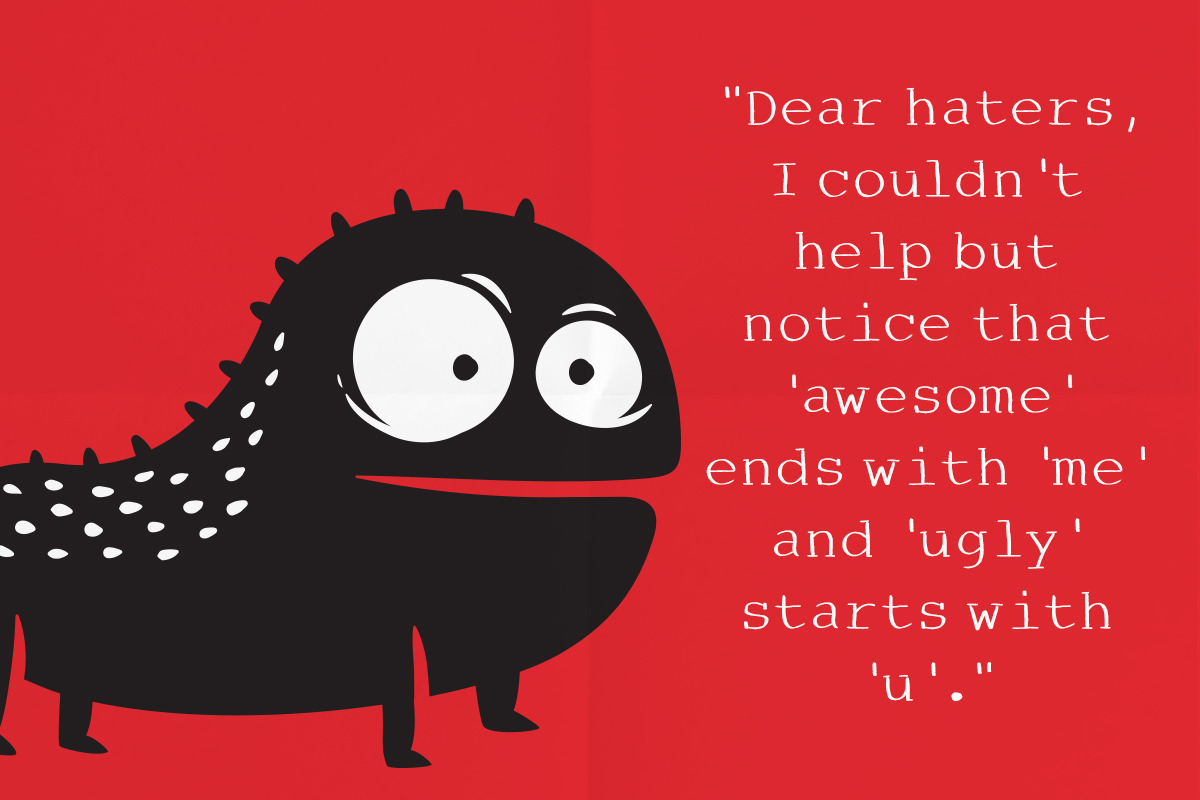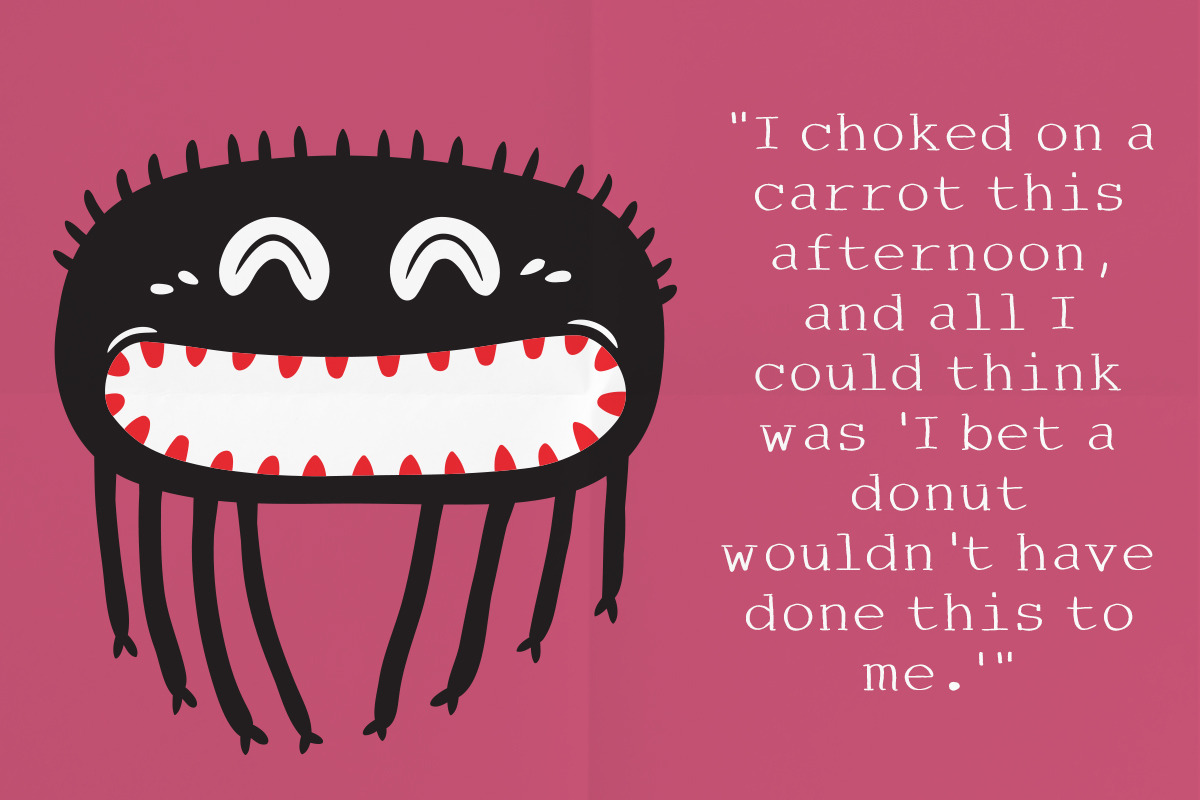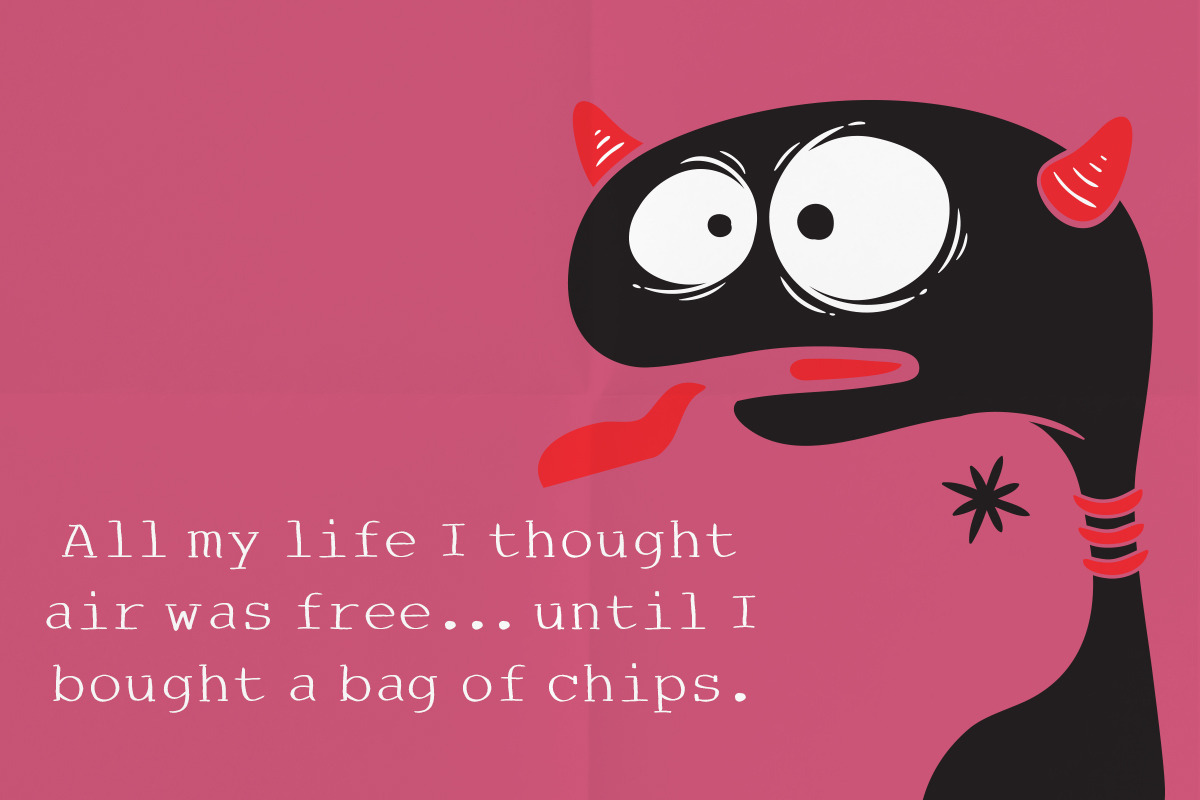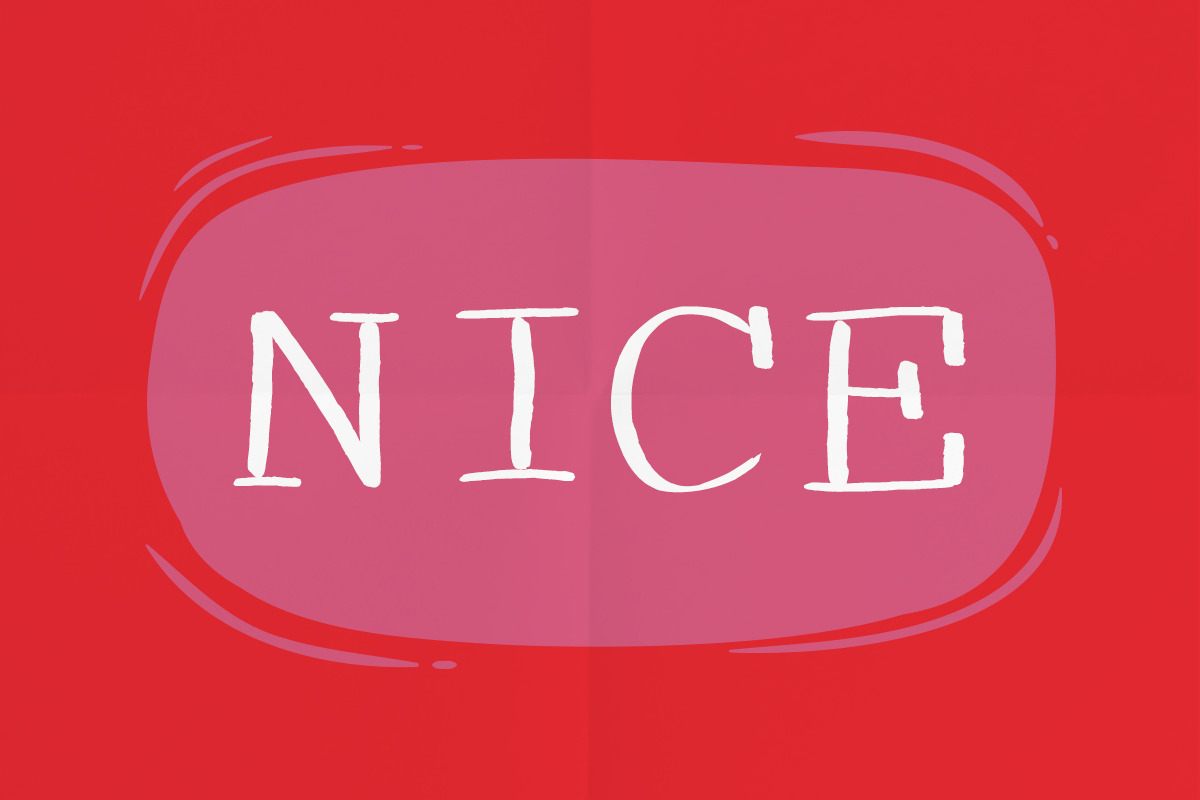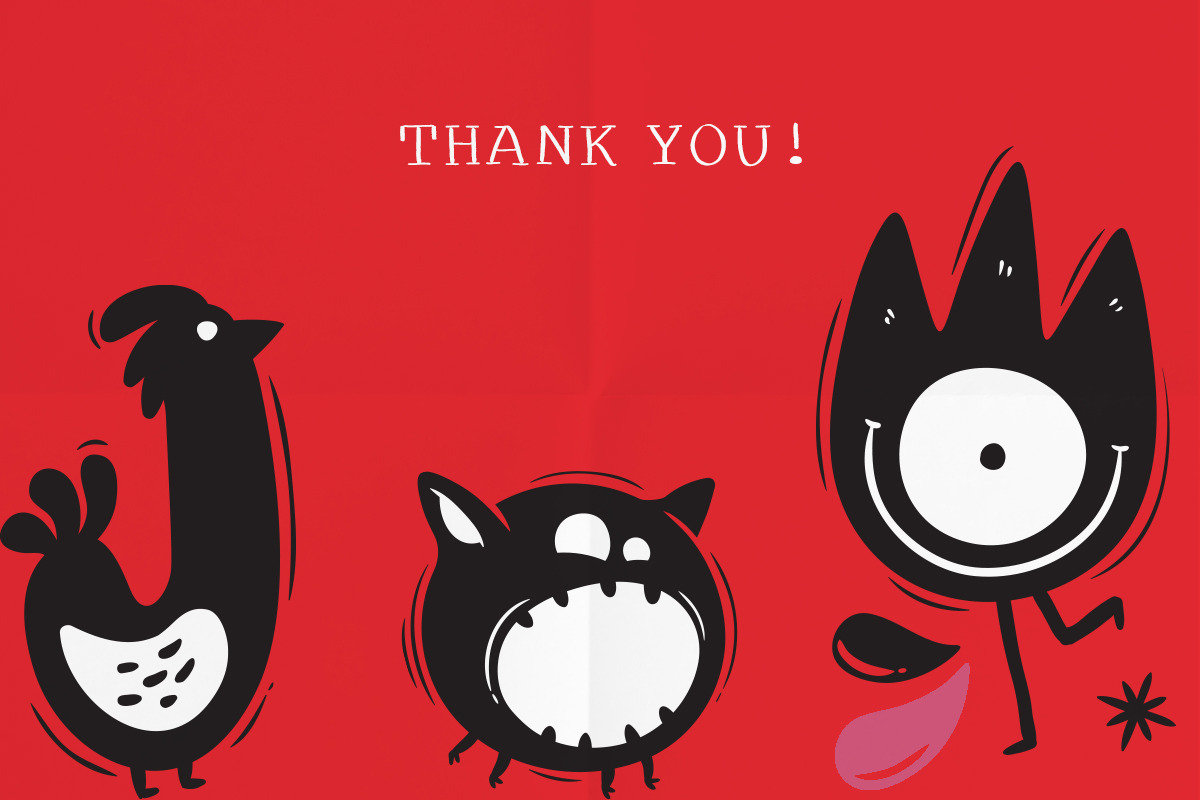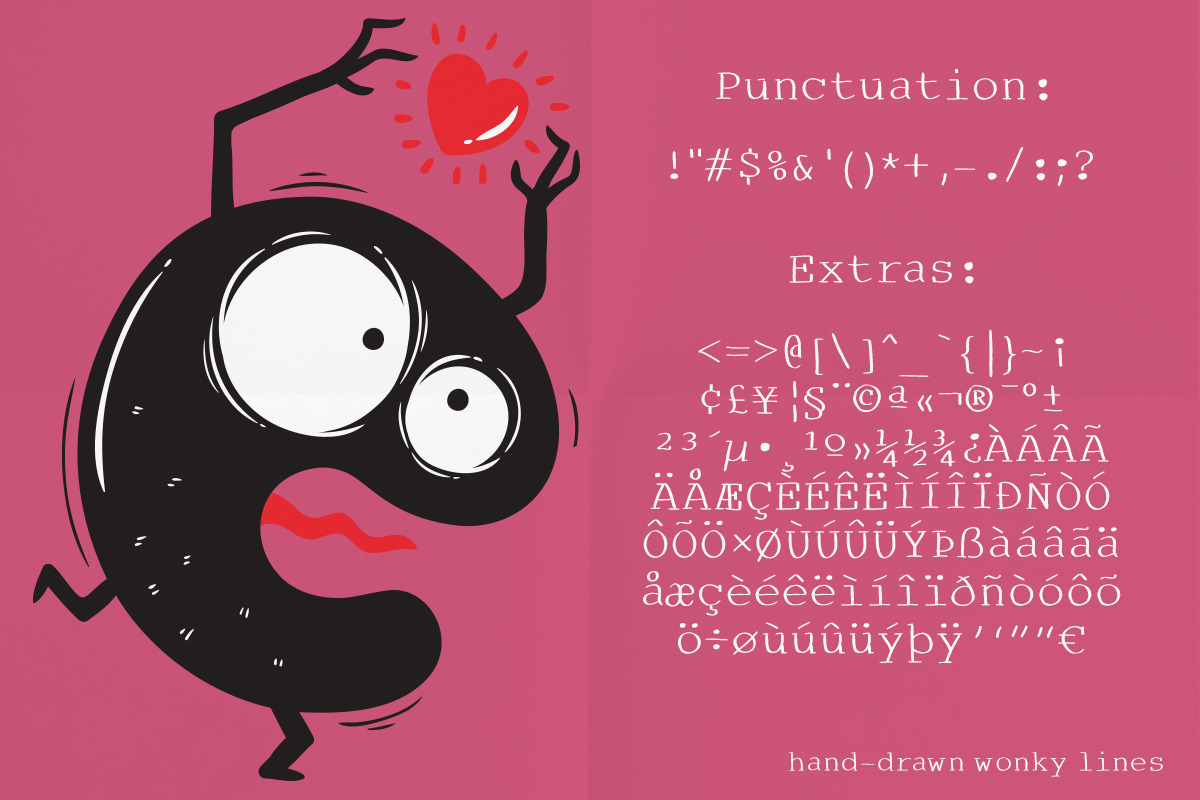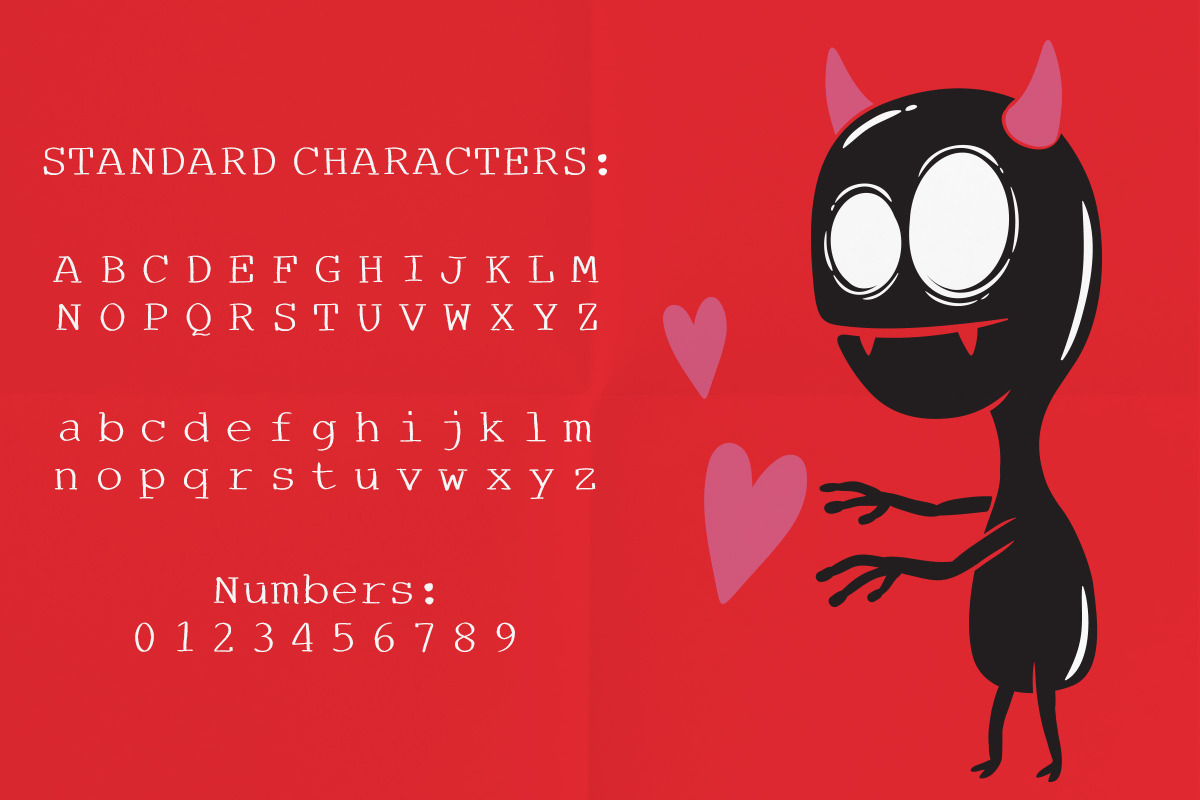
Spooky a Hand-Drawn Serif Font!
Spooky a hand-drawn serif font with wonky lines!
Spooky is a cute hand-drawn serif font. Clean and a little bit quirky, this font is the perfect fit for all of your logos, branding, social media, and crafty DIY projects.
As the nature of the characters is hand-drawn some "wonky" lines might be found which helps to add another touch of organic in the font that resonates with my personal style!